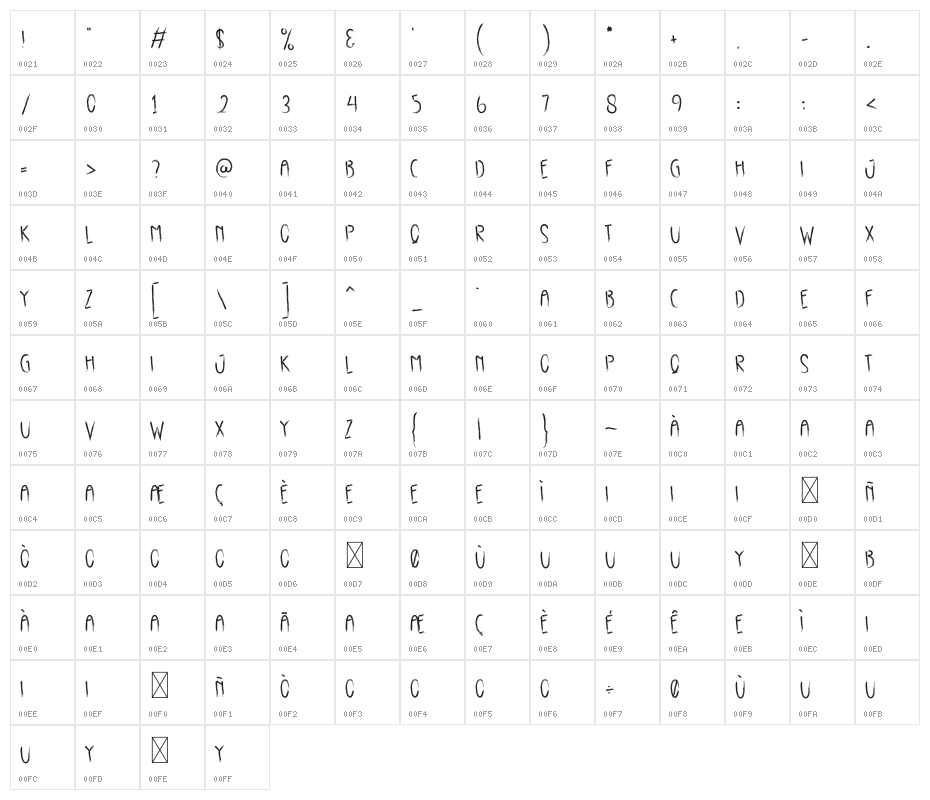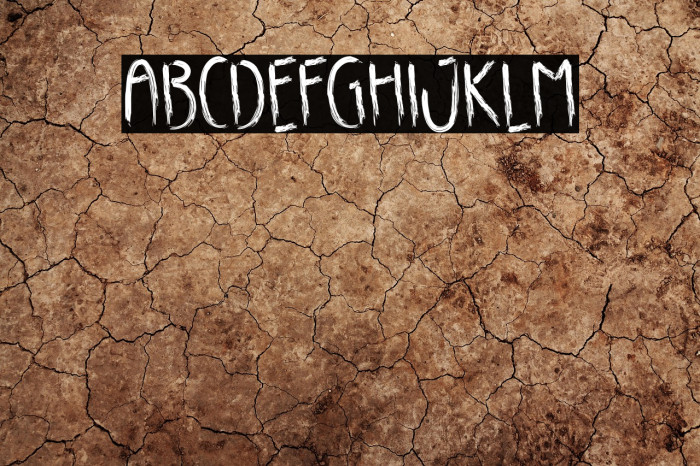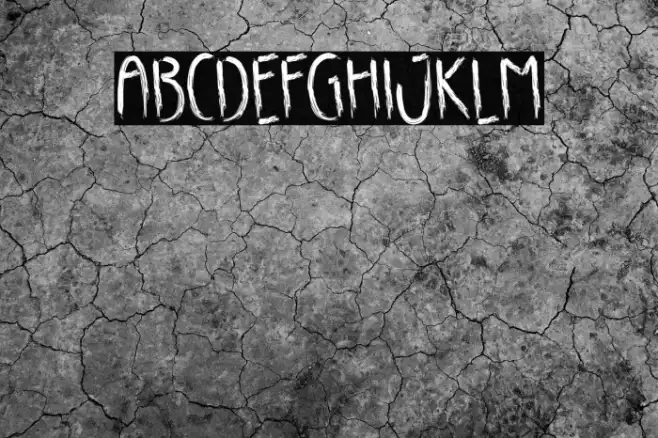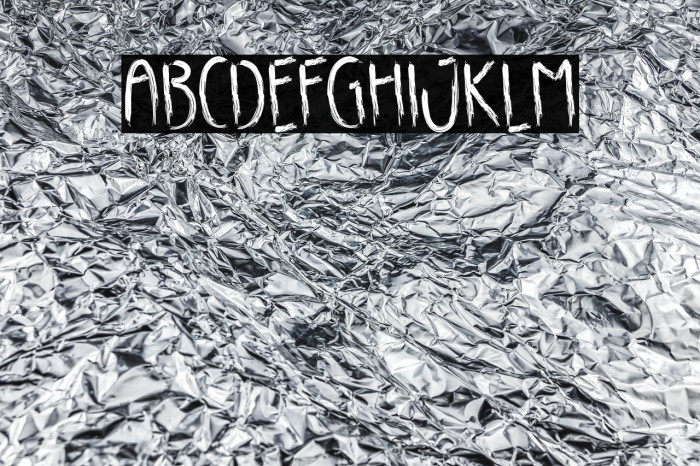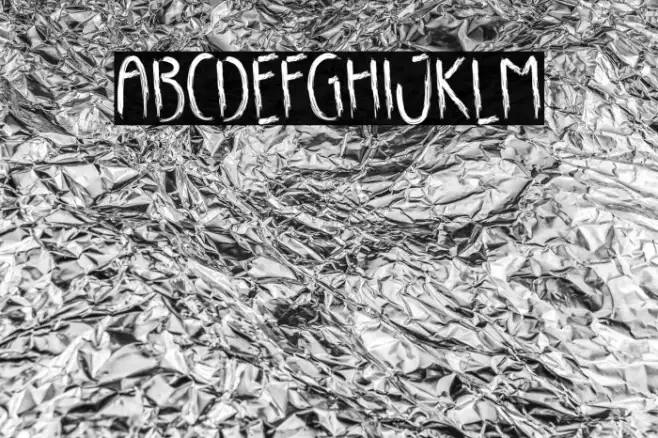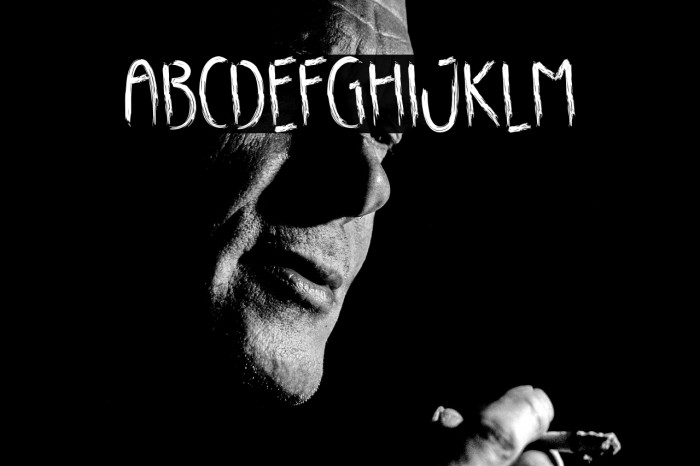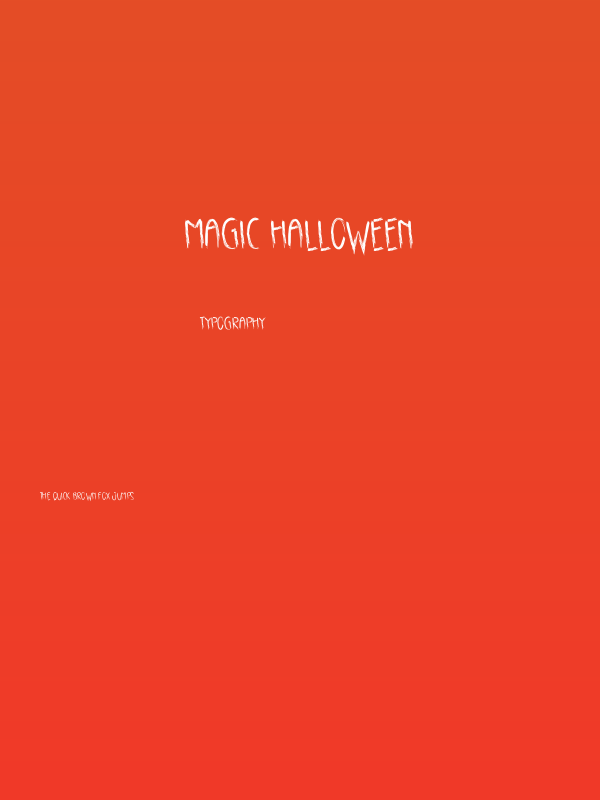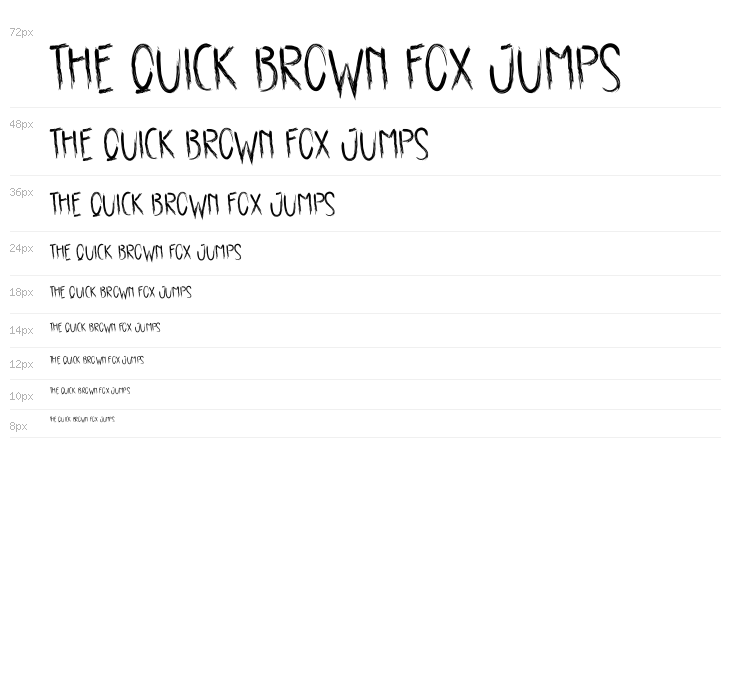
Magic Halloween Font
This font features a spooky, jagged design that evokes a sense of mystery and eeriness, perfect for Halloween-themed projects. The letters have an uneven, scratchy appearance, reminiscent of claw marks or eerie shadows. The strokes are irregular, with varying thickness that adds to the unsettling, haunted feel. The overall design is bold and eye-catching, making it ideal for creating a dramatic impact. The font maintains readability while still delivering a distinct, thematic style that captures the essence of Halloween and horror.
A spooky, jagged font with an eerie, scratchy appearance perfect for Halloween themes.
- Font: Magic Halloween
- Proposed Projects: Ideal for Halloween invitations, horror movie posters, haunted house flyers, and spooky-themed merchandise.
- Use Case: Headlines, Posters, Themed Events